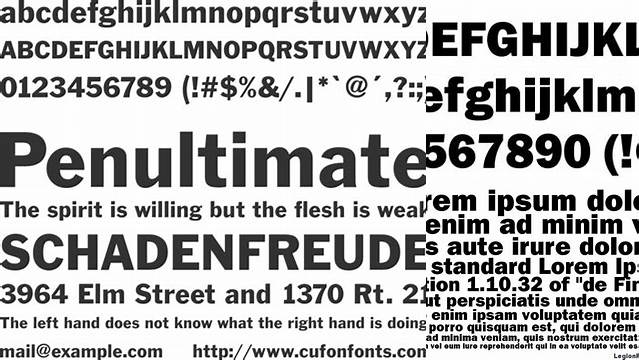
Hey guys! Are you looking to download Franklin Gothic Heavy font for free? You've come to the right place! In this article, we'll explore everything you need to know about this classic typeface, including its history, characteristics, and where you can find it for free.
What is Franklin Gothic Heavy?
Franklin Gothic Heavy is a bold and impactful typeface that belongs to the larger Franklin Gothic family. Designed by Morris Fuller Benton in 1902, it quickly became a staple in the printing industry due to its legibility, versatility, and strong presence. Franklin Gothic is classified as a sans-serif typeface, meaning it lacks the small decorative strokes (serifs) found in other font styles like Times New Roman. This gives it a clean, modern look that's perfect for a wide range of applications.
The history of Franklin Gothic is quite interesting. Morris Fuller Benton designed it for the American Type Founders (ATF) company. The goal was to create a typeface that was both highly readable and attention-grabbing, ideal for headlines and advertising. Its success led to the development of numerous variations, including Franklin Gothic Light, Franklin Gothic Medium, and Franklin Gothic Condensed, among others. Each variant offers a unique flavor while maintaining the core characteristics of the original design. Franklin Gothic Heavy specifically stands out because of its extra bold weight, which makes it perfect for situations where you need a font that really pops. Over the years, Franklin Gothic has been used extensively in newspapers, magazines, posters, and corporate branding, proving its timeless appeal and adaptability. Even today, designers continue to choose Franklin Gothic for its reliability and classic aesthetic. Its enduring popularity is a testament to Benton's design genius and its suitability for diverse design needs. Whether you're working on a website, creating a logo, or designing print materials, Franklin Gothic Heavy remains a solid choice. It is also important to remember that while many sources offer the font for free, it's crucial to ensure you're downloading it from a reputable site to avoid any potential legal or security issues. So, when you're looking to enhance your design projects, consider the powerful impact of Franklin Gothic Heavy.
Key Characteristics of Franklin Gothic Heavy
Franklin Gothic Heavy possesses several distinctive characteristics that make it a popular choice for designers. Firstly, its bold weight immediately grabs attention, making it ideal for headlines and titles. The thick strokes create a strong visual impact, ensuring that the text stands out even from a distance. This is particularly useful in advertising and promotional materials, where capturing the viewer's attention is crucial. Secondly, the sans-serif design contributes to its clean and modern appearance. The absence of serifs gives the font a streamlined look, making it easy to read on both print and digital media. This is especially important for body text and other applications where legibility is paramount.
Another key feature is its uniformity. The letterforms are consistently shaped, providing a sense of balance and harmony. This makes Franklin Gothic Heavy a reliable choice for projects that require a polished and professional look. The font's proportions are also carefully considered, ensuring that each character fits well with the others. This contributes to the overall readability and aesthetic appeal. Furthermore, Franklin Gothic Heavy is known for its versatility. While it excels in headlines and titles, it can also be used effectively in shorter blocks of body text. Its clarity and straightforward design make it suitable for a wide range of applications, from websites and brochures to posters and signage. The font's adaptability is one of the reasons why it has remained a favorite among designers for so many years. Additionally, the historical context of Franklin Gothic Heavy adds to its appeal. Designed in the early 20th century, it carries a sense of classic Americana, evoking a feeling of trustworthiness and reliability. This can be particularly valuable for brands that want to project an image of stability and tradition. Finally, the availability of different weights and styles within the Franklin Gothic family allows designers to create a cohesive and visually appealing design system. By combining Franklin Gothic Heavy with lighter weights or condensed versions, you can achieve a balanced and dynamic look that enhances the overall impact of your project. Therefore, understanding these key characteristics is essential for leveraging the full potential of Franklin Gothic Heavy in your design work.
- Consider the context: Think about the overall tone and message of your design. Franklin Gothic Heavy is a strong and assertive font, so it may not be suitable for every project. Use it when you want to convey confidence, authority, or importance.